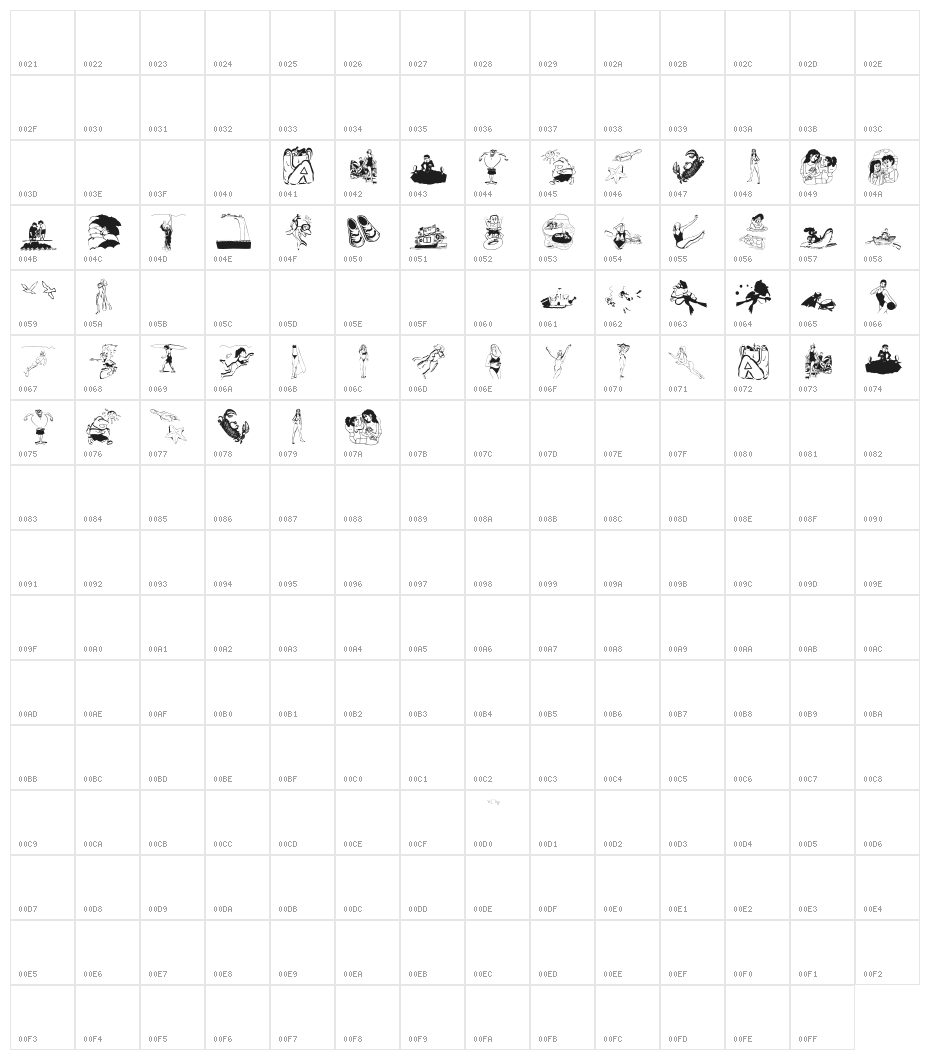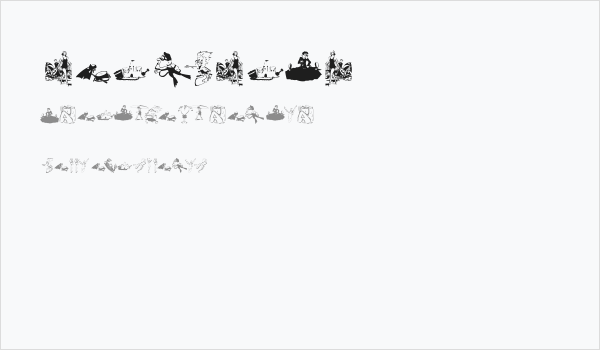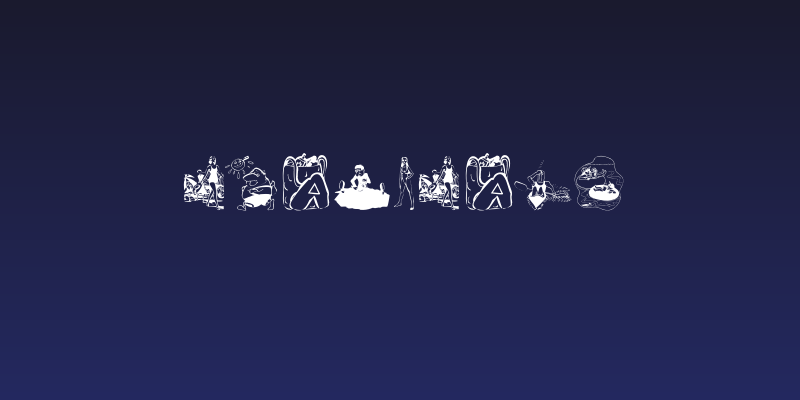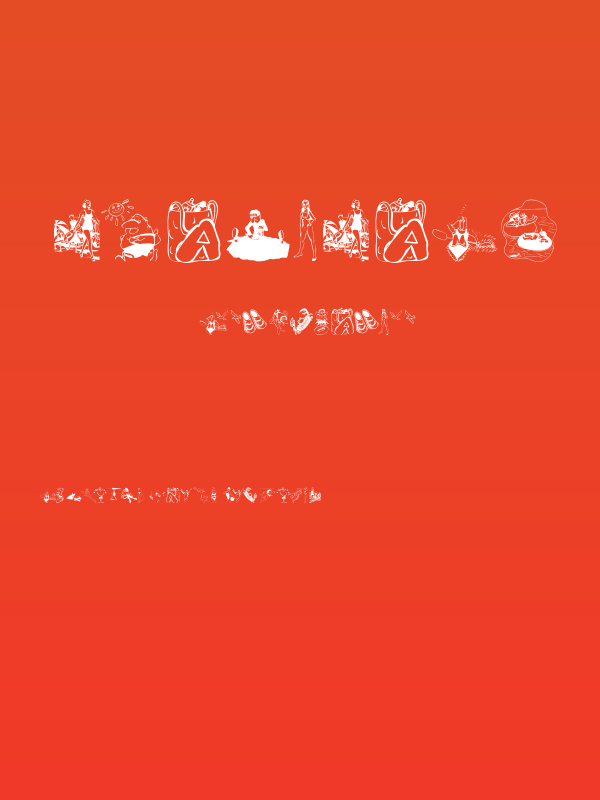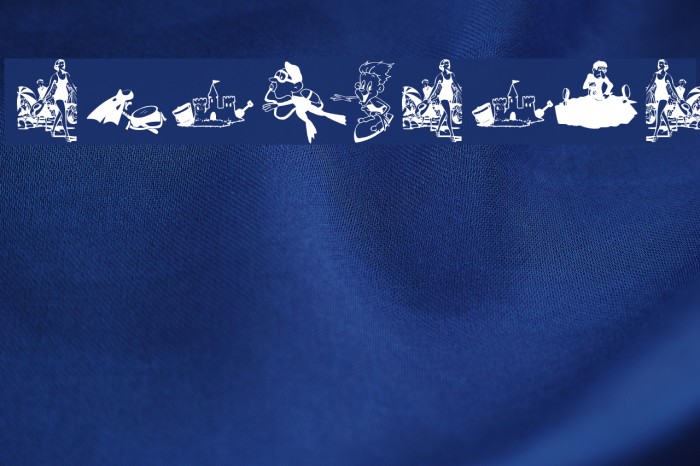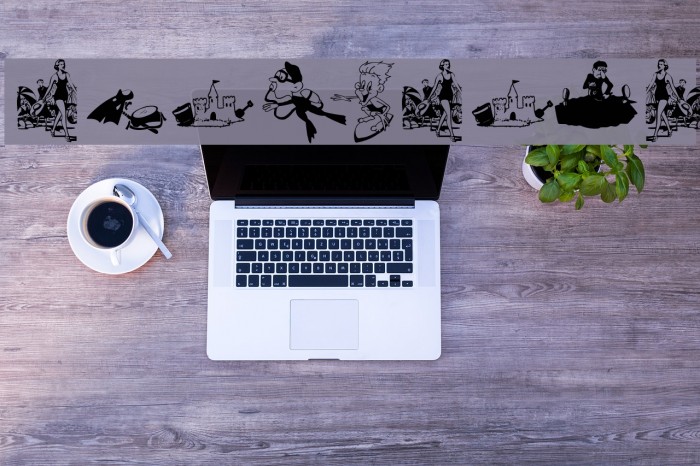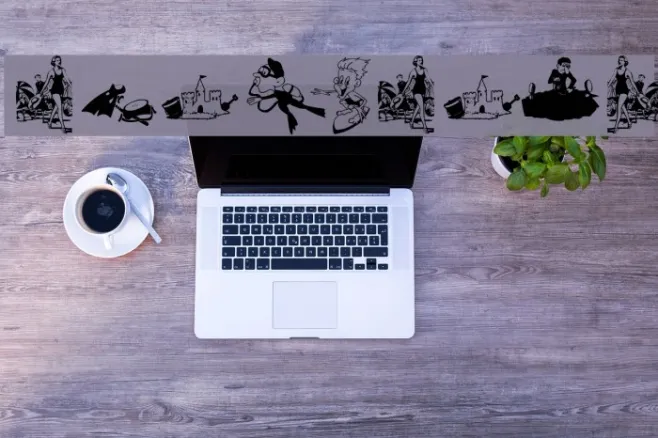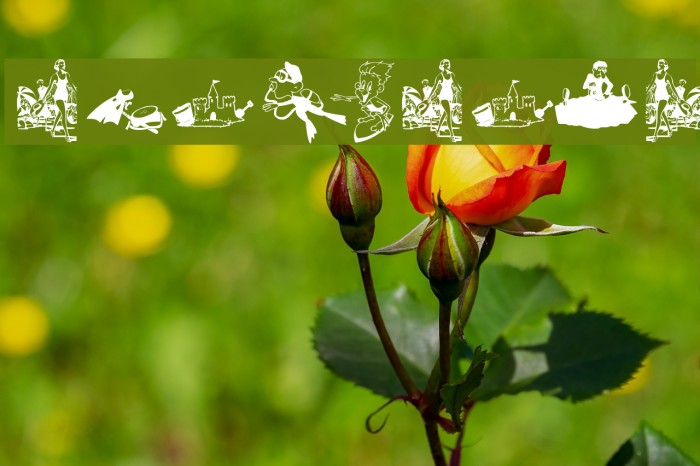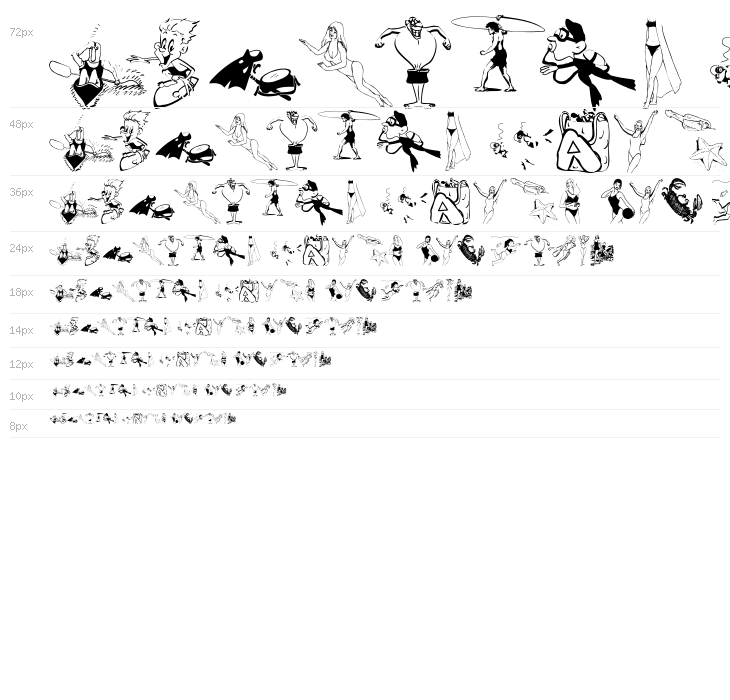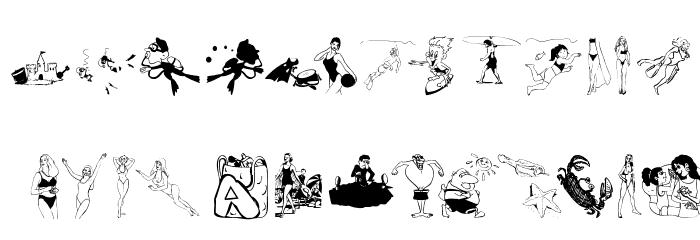
BeachBats Font
BeachBats Description
This is a decorative font featuring playful, beach-themed illustrations for each character. Each letter and number is represented by a unique drawing, capturing scenes and elements associated with beach life, such as people sunbathing, playing sports, and enjoying seaside activities. The font is highly illustrative, with each character being a small piece of art, making it ideal for creative projects that require a fun and lively touch. The detailed illustrations are engaging and evoke a sense of summer and leisure, perfect for designs that aim to convey a relaxed and joyful atmosphere.
| Proposed Projects | Ideal for summer event posters, beach party invitations, children's books, and playful branding projects. |